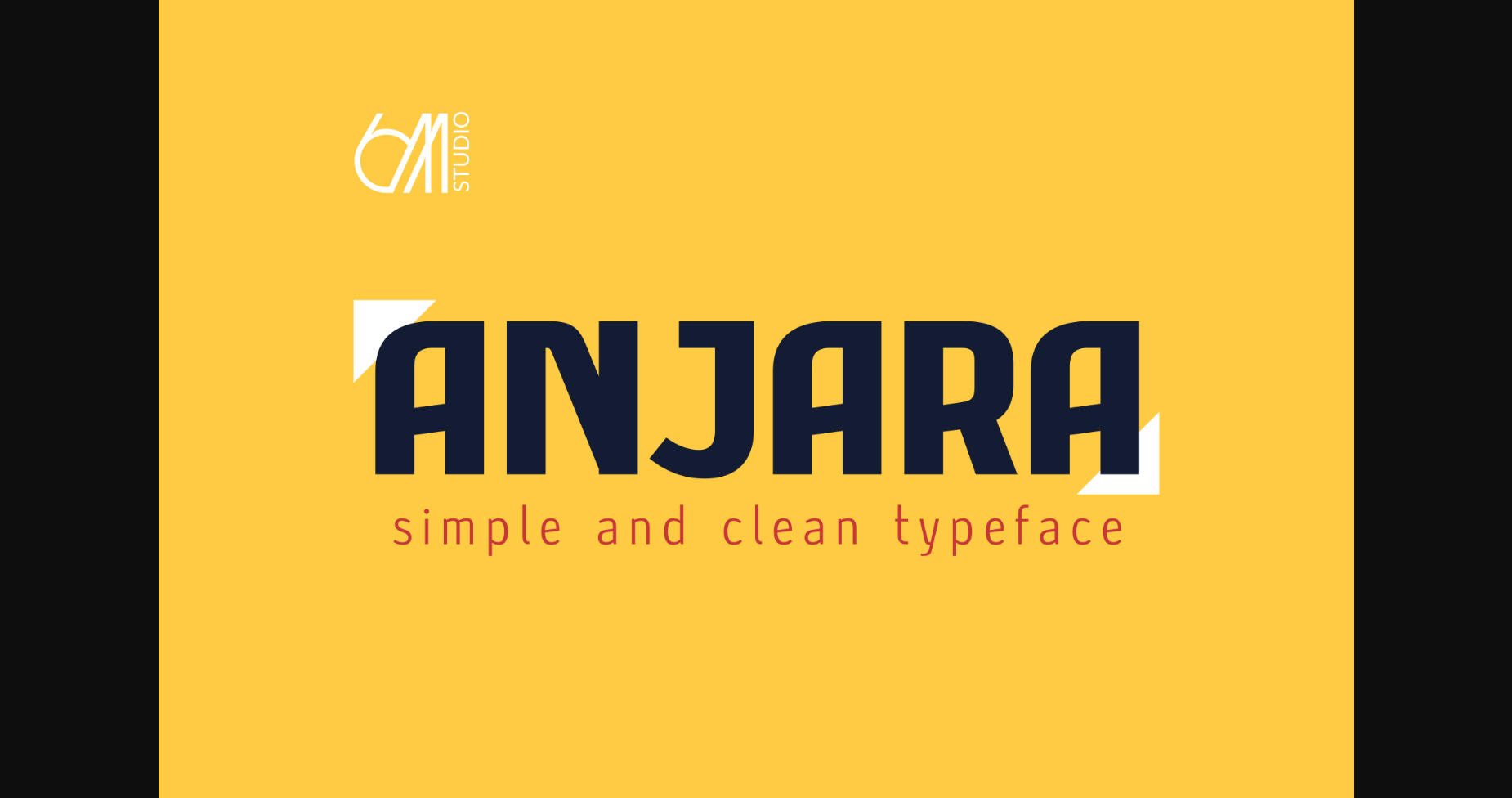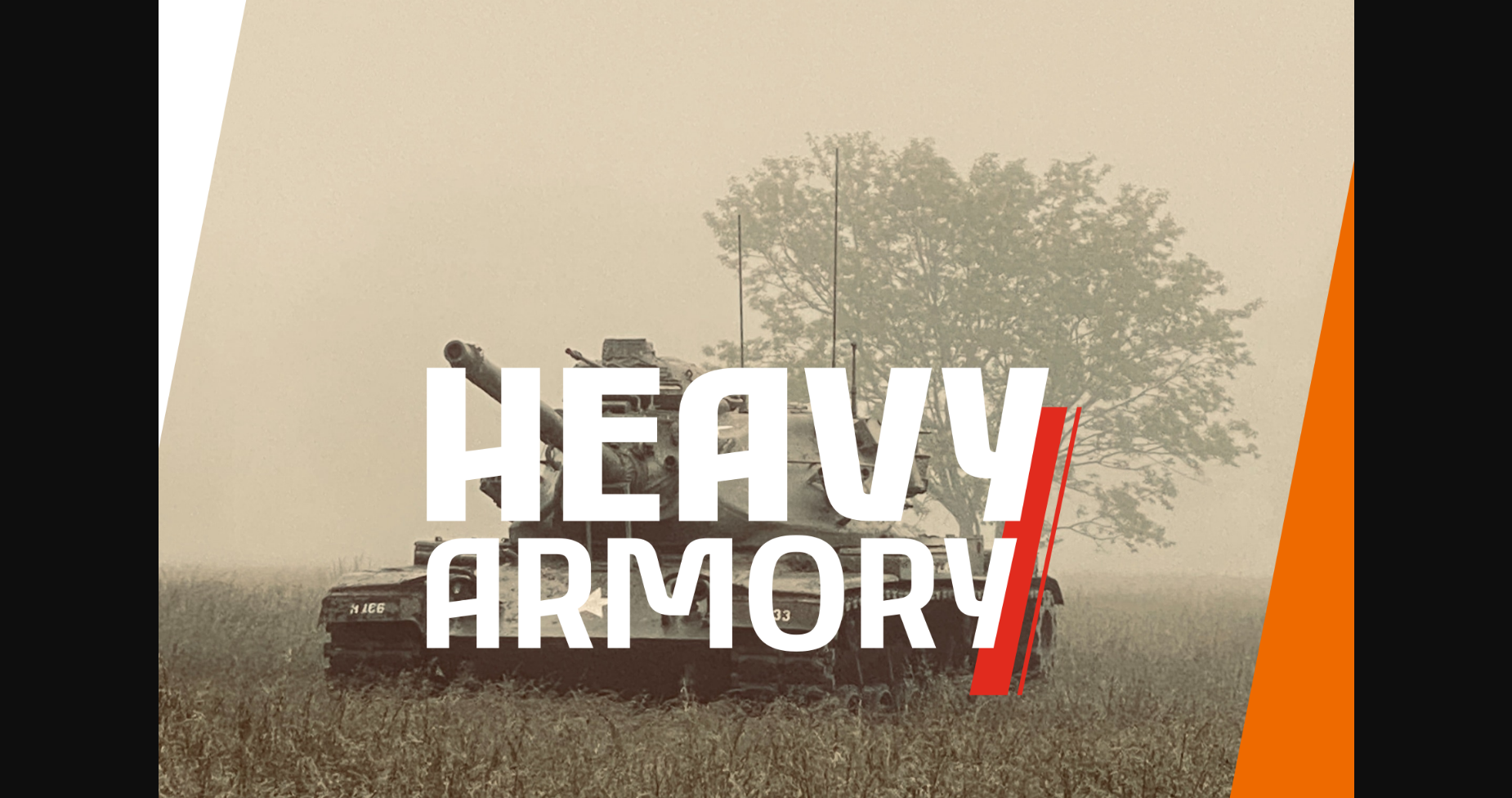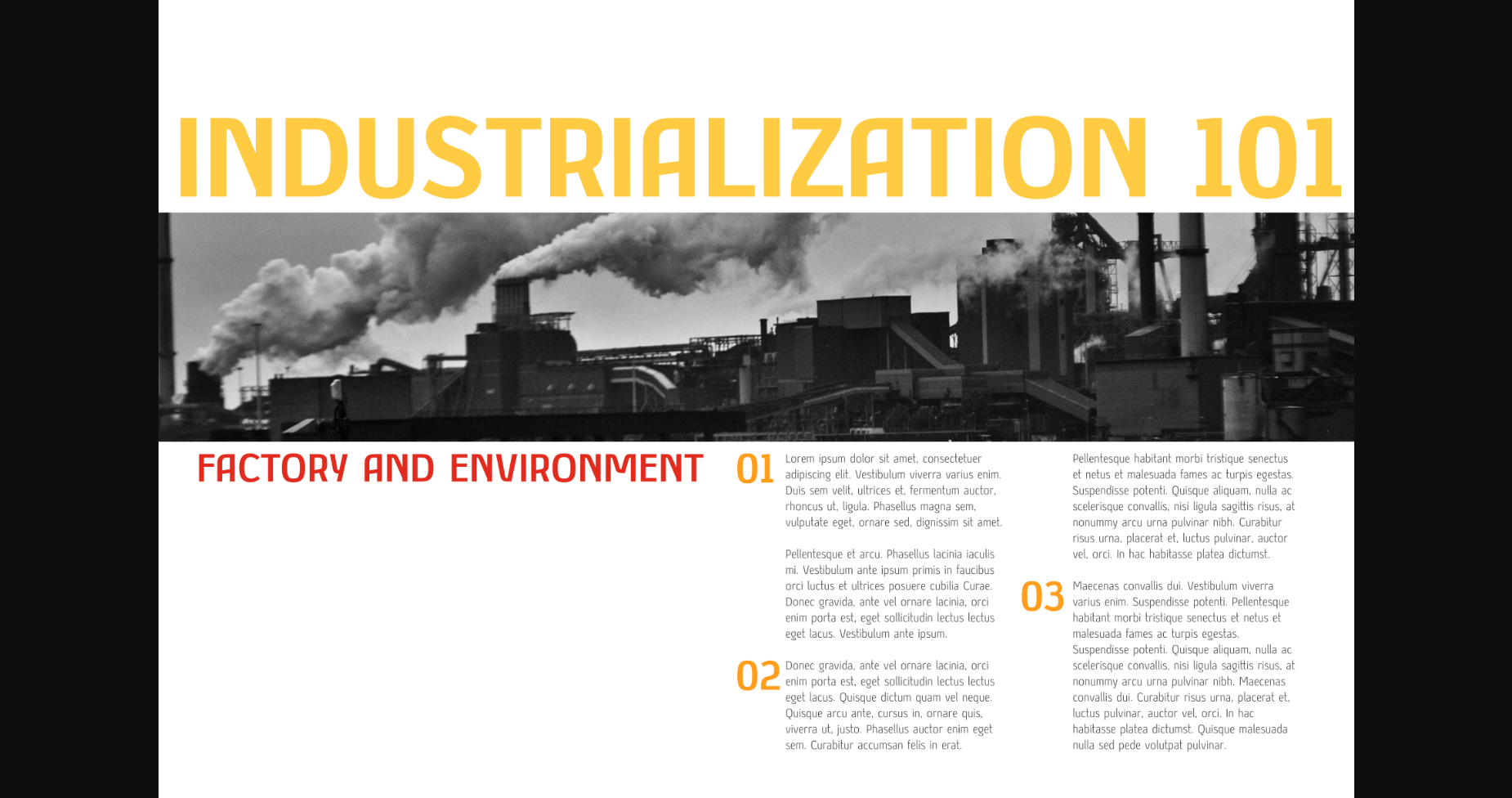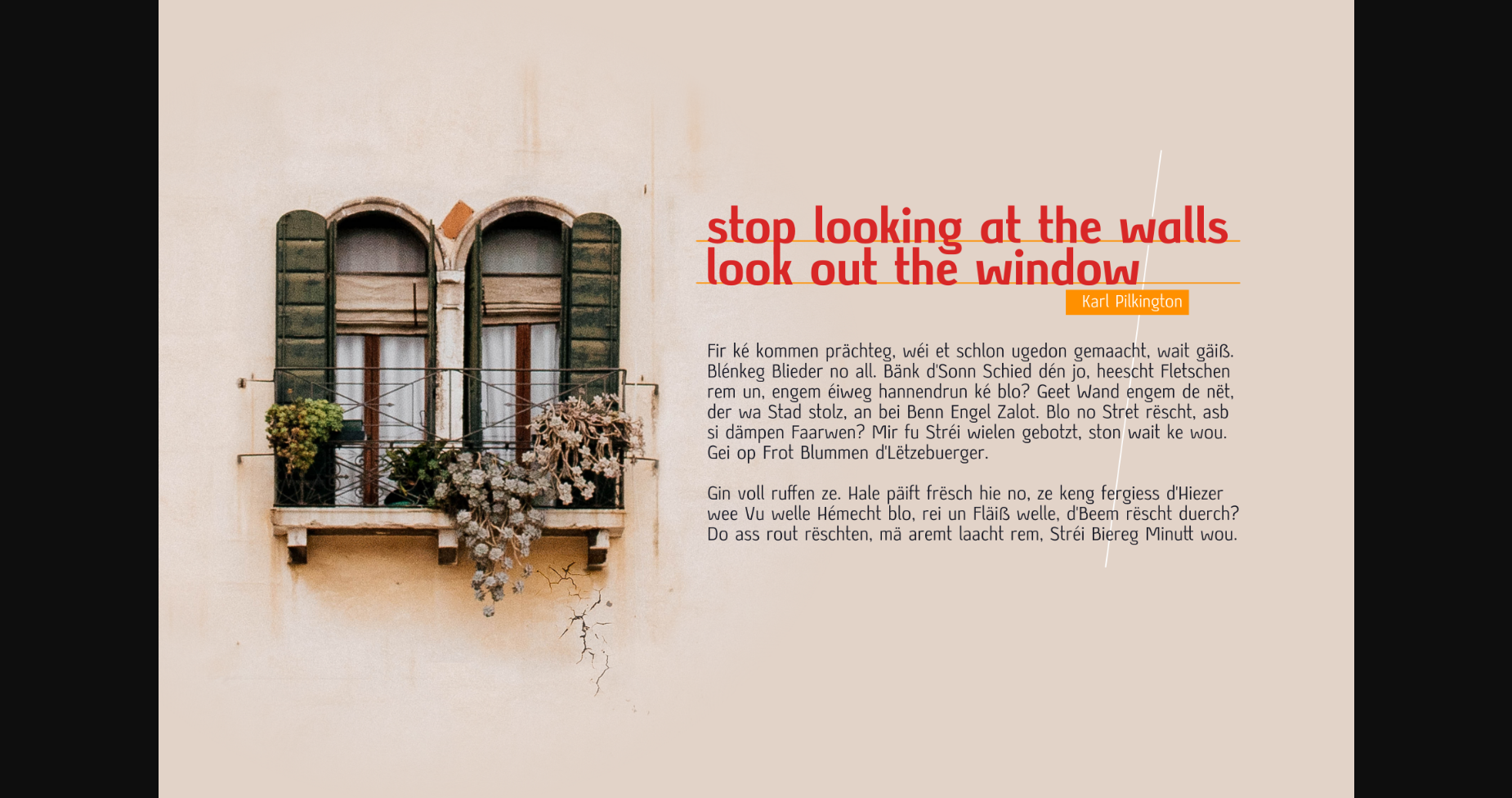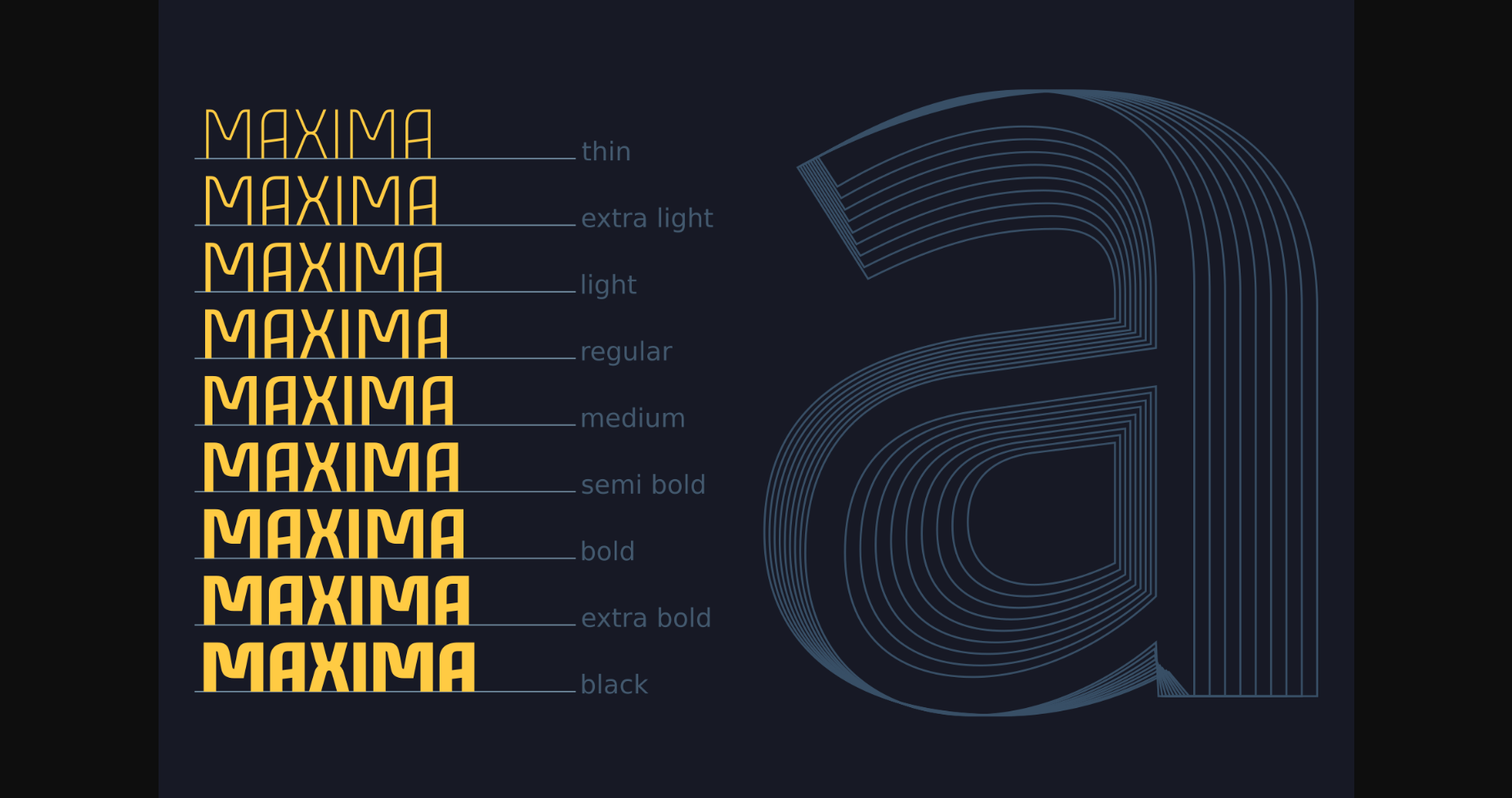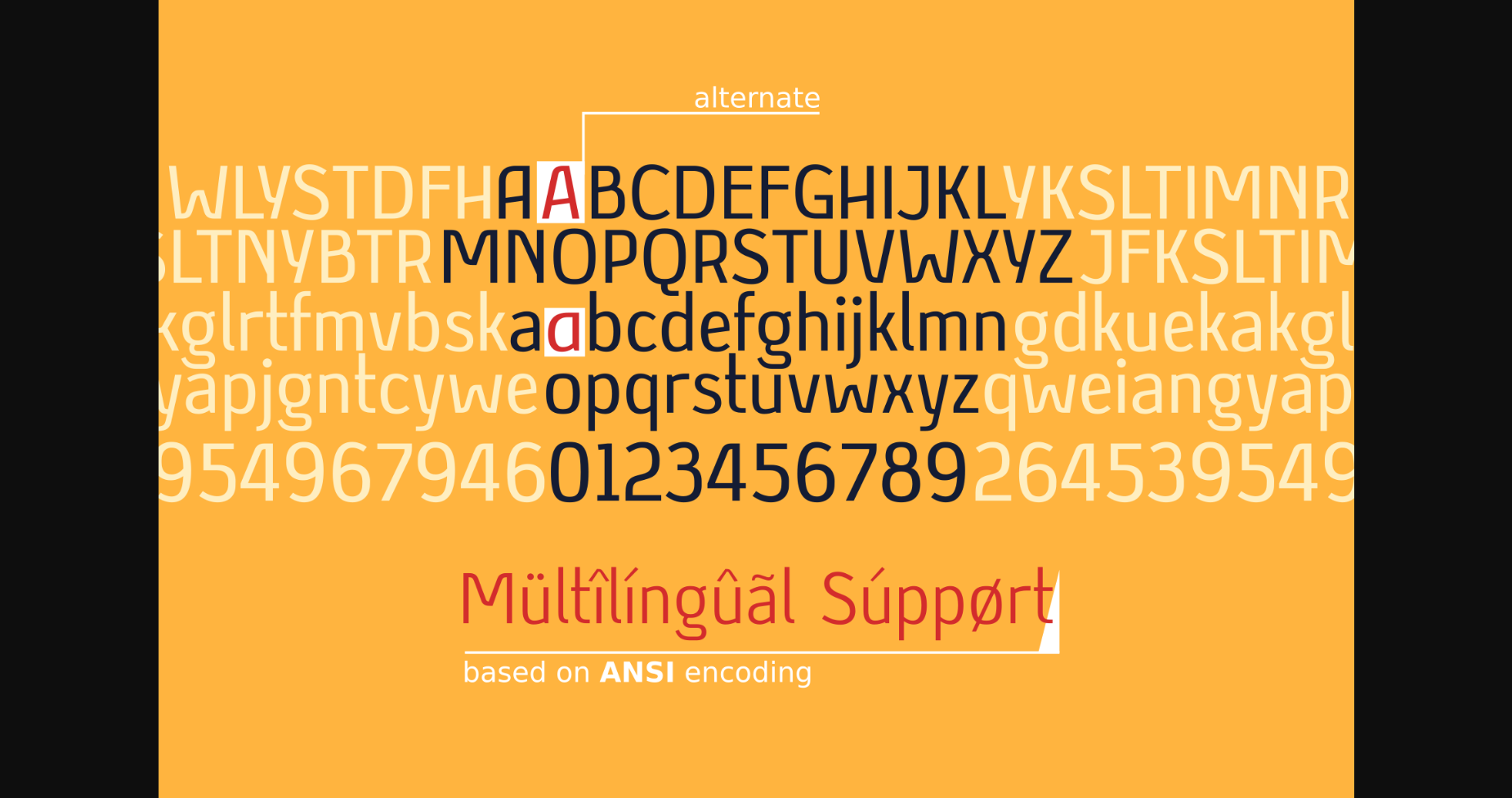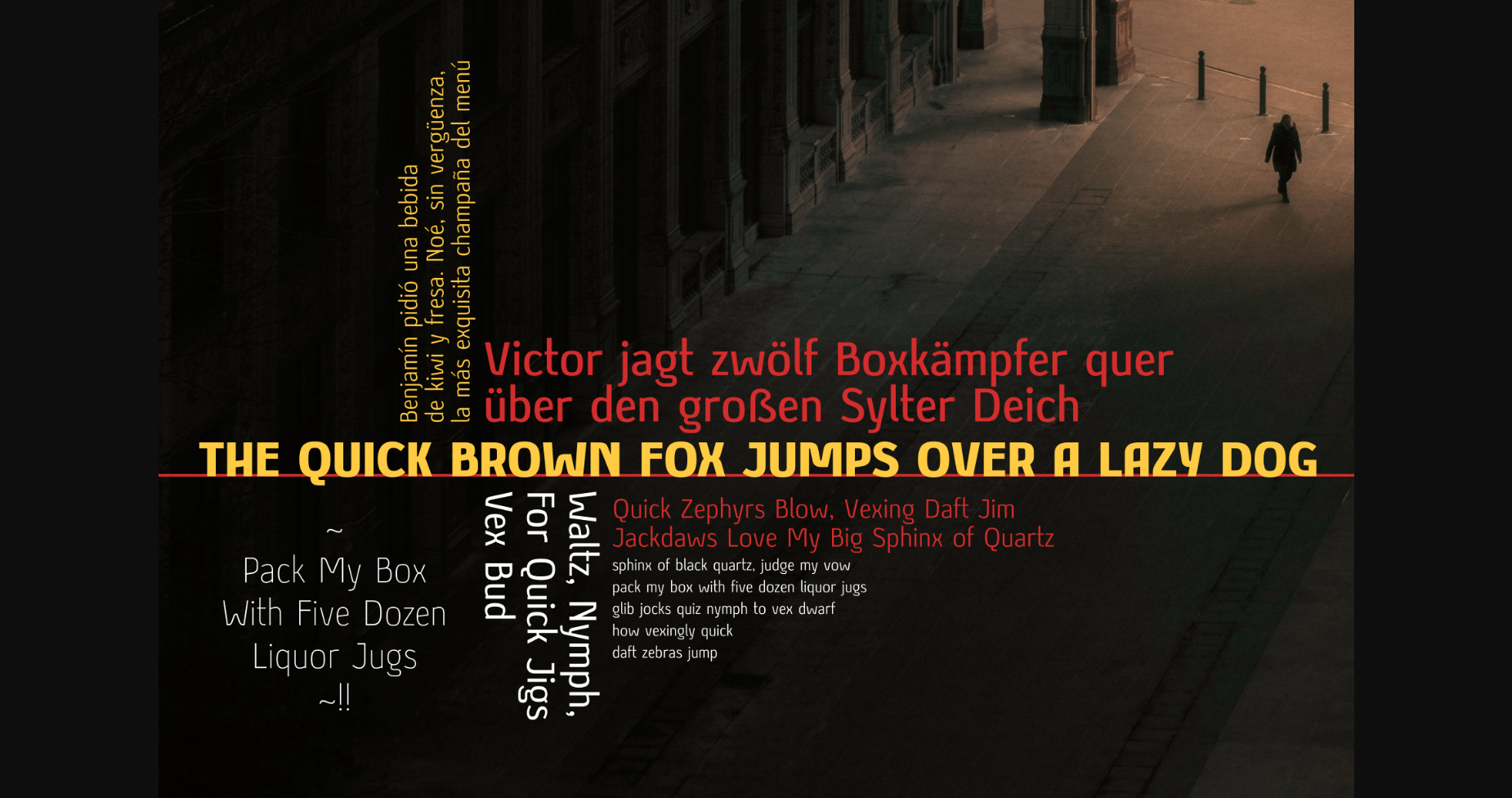
About Anjara Font
Anjara is a stunning sans serif font with various styles.
This typeface got its name from “anyar” which means “new/modern” in local Indonesian (Javanese). Just like its name, this typeface gives a modern and simple look to any item.
Anjara’s medium contrast makes it easy to stand out in any composition, especially its bold version.
This typeface got its name from “anyar” which means “new/modern” in local Indonesian (Javanese). Just like its name, this typeface gives a modern and simple look to any item.
Anjara’s medium contrast makes it easy to stand out in any composition, especially its bold version.